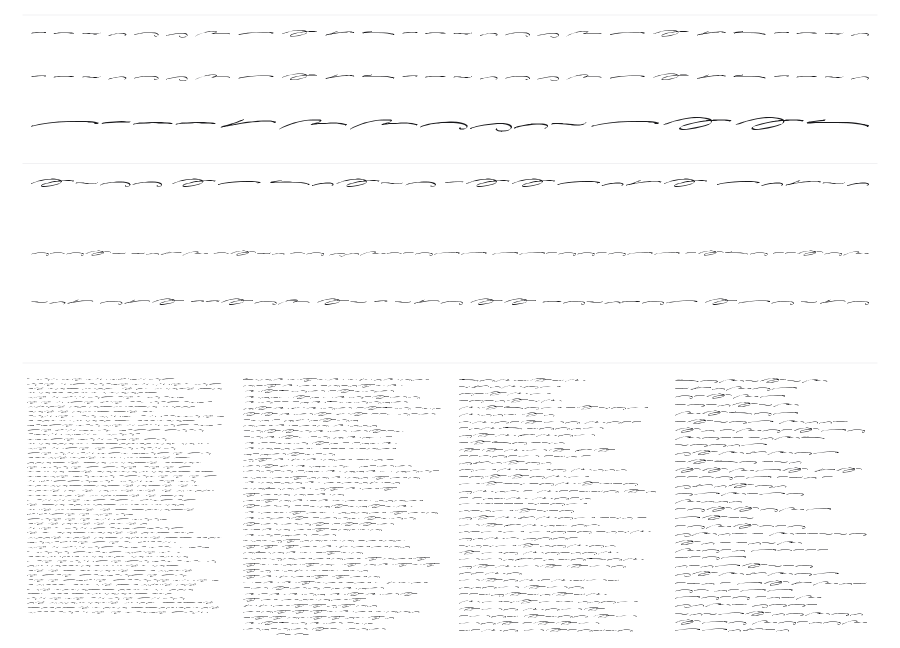
Alexandry
Alexandry is a hairline formal script with the sweeping fluidity of a luxury signature. Its near-monoweight strokes and continuous flowing connections give text a distinctive, almost illegible elegance reminiscent of high-end fashion branding. Best used large, where the delicate lines and looping rhythms can breathe.